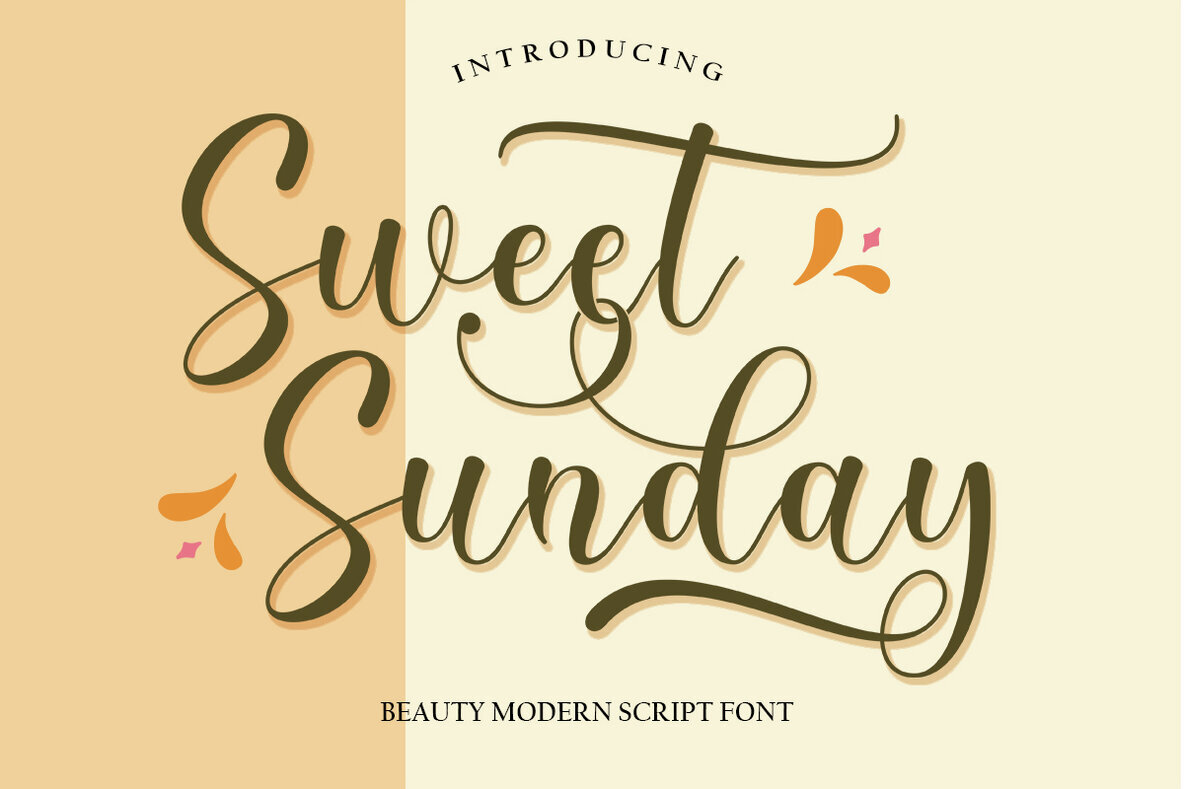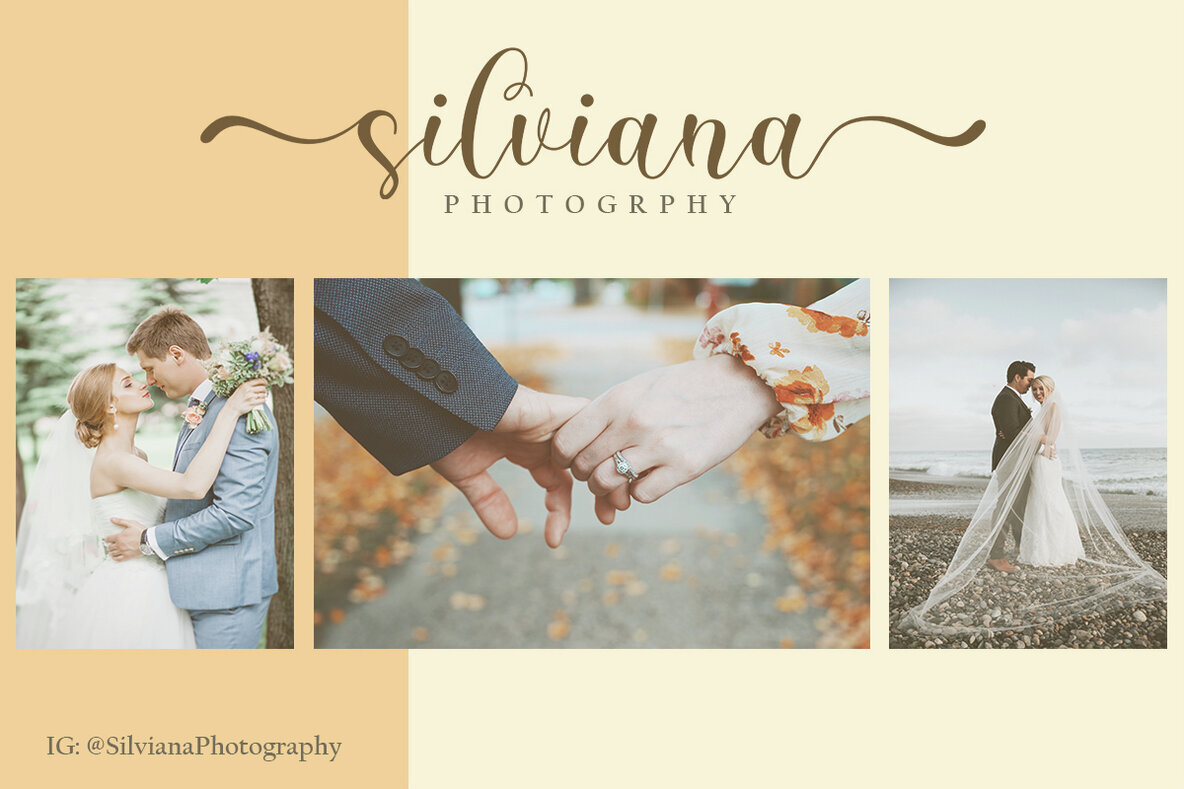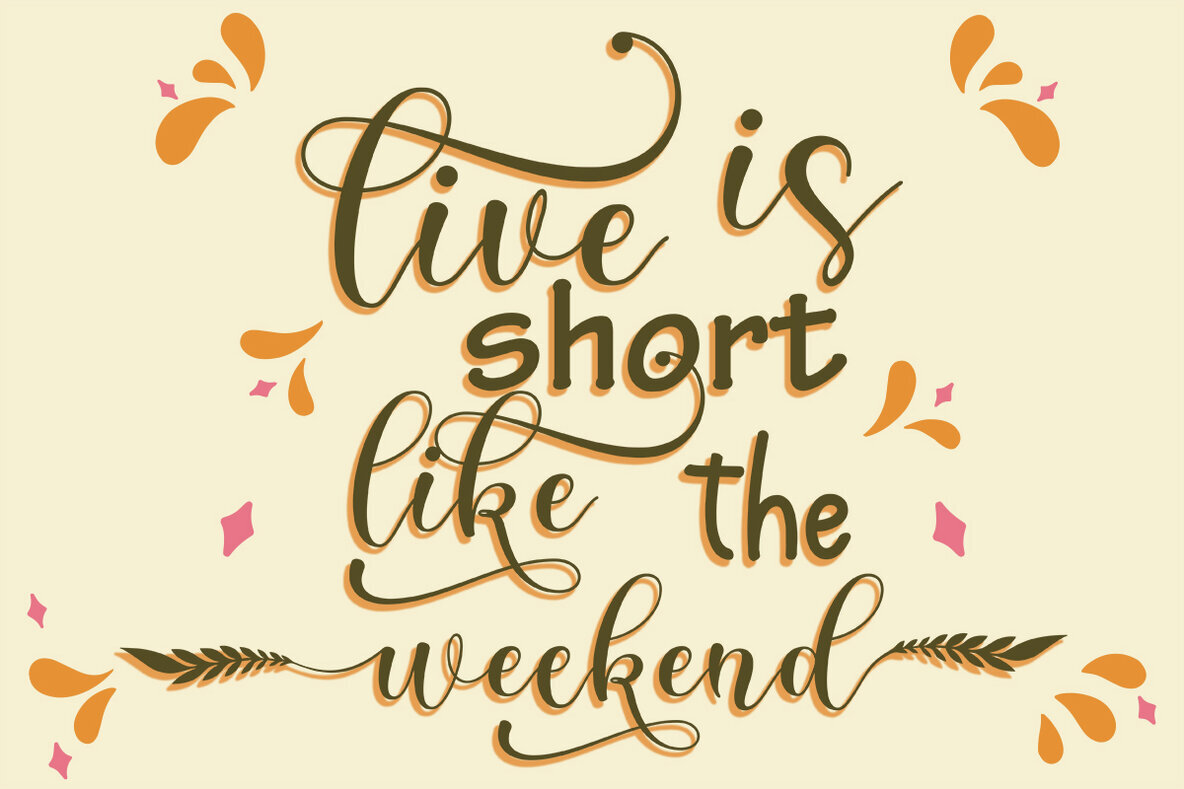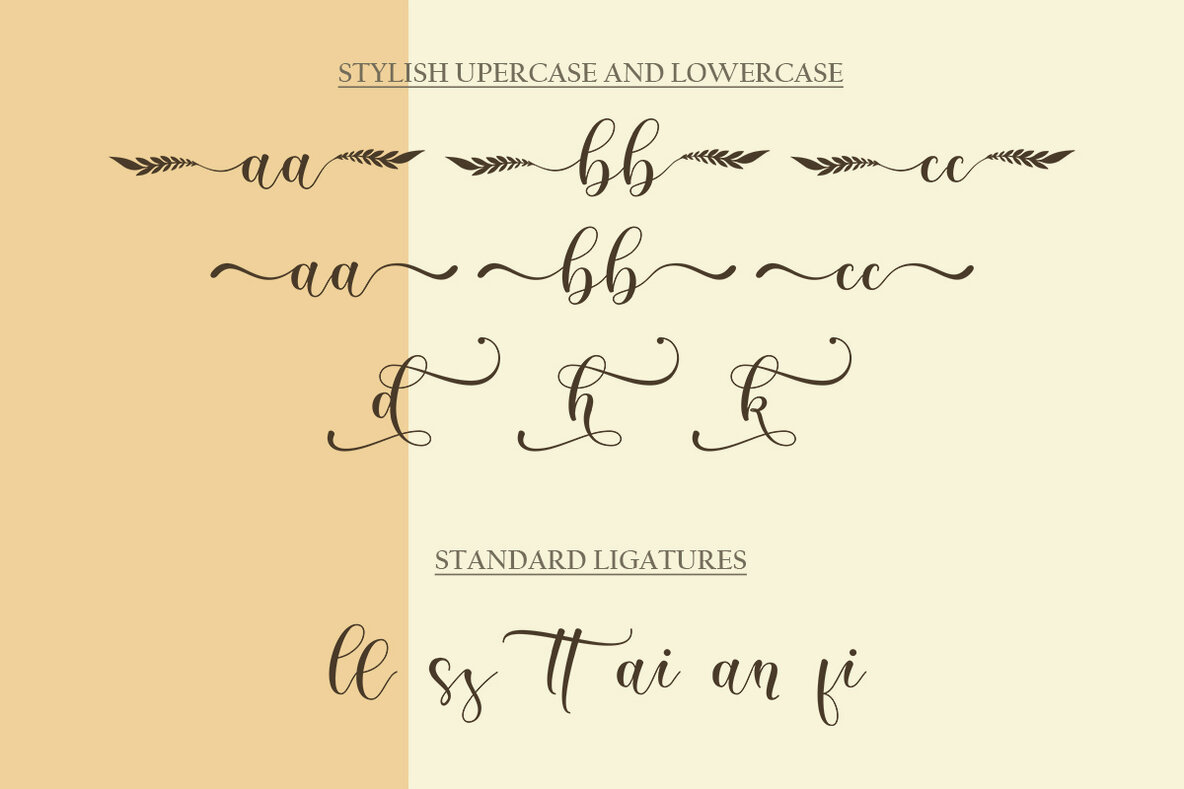
Sweet Sunday
Sweet Sunday is a stylish, modern handwritten font enriched with a delightful collection of decorative doodles. Its unique charm lies in its versatility, featuring ligatures for common letter pairs such as ss, tt, ai, an, and ee. Whether you're designing quotes, shirts, websites, or branding elements, this font offers elegance and playfulness in equal measure. It's also perfect for children's designs, svg projects, blogs, logos, and invitations.Sweet Sunday Font
Perfect for Creative Projects